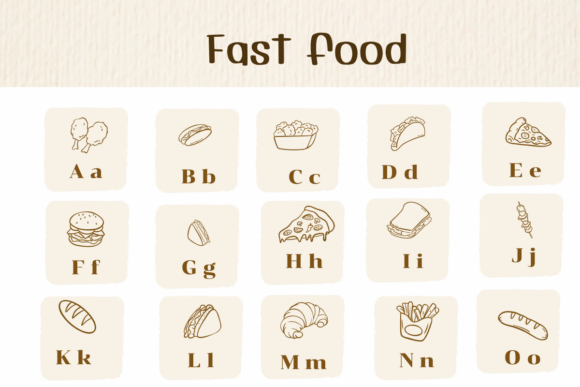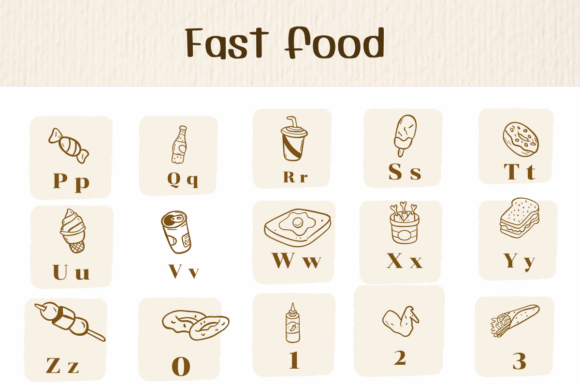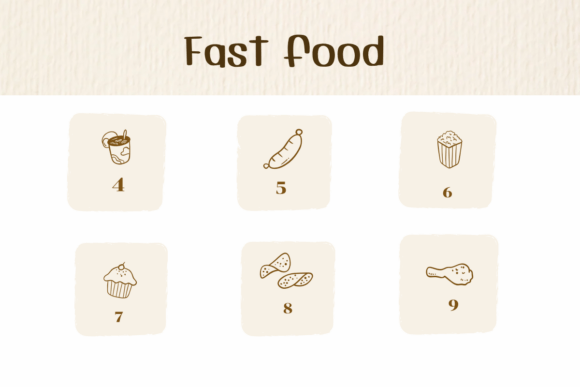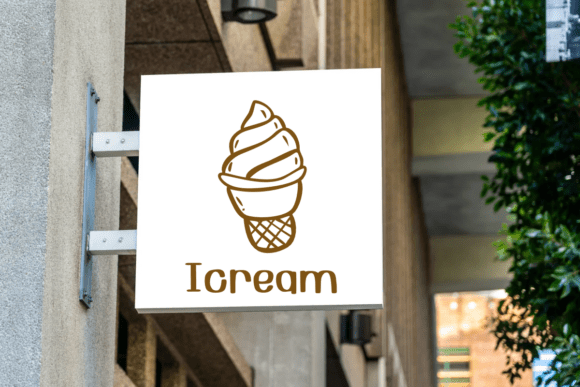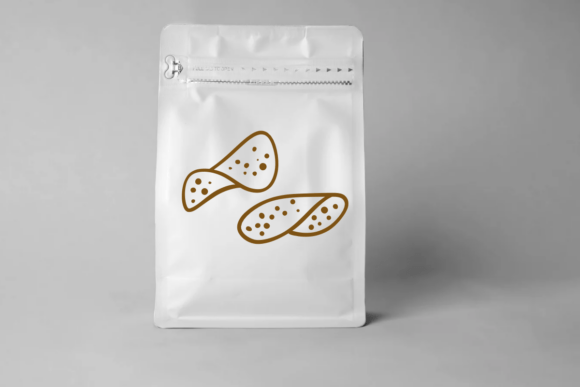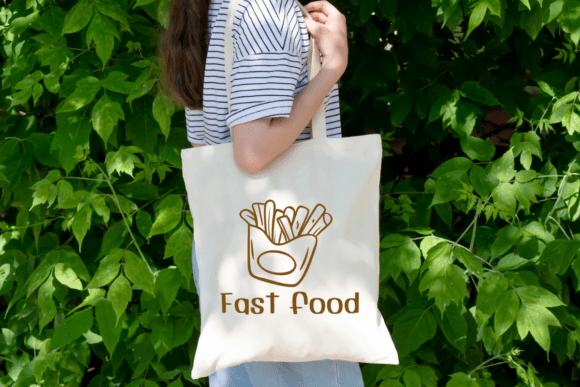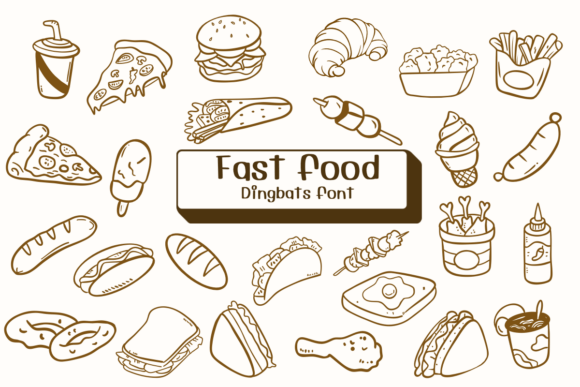
Fast Food Font: A Delicious Collection of Hand-Drawn Food Icons
Are you a designer, crafty enthusiast, or food blogger looking for a fun and playful way to add a tasty vibe to your projects? Look no further than the Fast Food Dingbats Font! This hand-drawn font serves up a mouth-watering collection of food icons that are sure to make your restaurant menus, food blogs, recipe cards, stickers, and packaging designs stand out.
What is Fast Food Dingbats Font?
Fast Food Dingbats Font is a unique and creative font that features a collection of hand-drawn food icons, including burgers, fries, tacos, pizza, ice cream, and many more. This playful dingbat font is perfect for adding a fun and whimsical touch to any project. Whether you’re designing a menu for a restaurant, creating a recipe card for a food blog, or making stickers for a craft project, Fast Food Dingbats Font is the perfect choice.
Key Features of Fast Food Dingbats Font
- Hand-drawn food icons: Each icon is carefully hand-drawn to ensure a unique and playful look.
- Variety of food icons: The font includes a wide range of food icons, from classic fast food items to sweet treats.
- Easy to use: Simply type in the keyboard shortcuts to access the icons and add them to your project.
- Scalable: The font is scalable, making it perfect for use in a variety of projects, from small stickers to large billboards.
Uses for Fast Food Dingbats Font
Fast Food Dingbats Font is a versatile font that can be used in a variety of projects, including:
- Restaurant menus: Add a fun and playful touch to your restaurant menu with hand-drawn food icons.
- Food blogs: Use the font to create eye-catching recipe cards and add a tasty vibe to your food blog.
- Recipe cards: Create custom recipe cards with hand-drawn food icons that will make your recipes stand out.
- Stickers: Use the font to create fun and colorful stickers for your craft projects.
- Packaging design: Add a playful touch to your packaging design with hand-drawn food icons.
Benefits of Using Fast Food Dingbats Font
Using Fast Food Dingbats Font in your projects offers a range of benefits, including:
- Unique and playful look: The hand-drawn food icons add a unique and playful touch to your projects.
- Increased engagement: The fun and whimsical design of the font is sure to engage your audience and make your projects stand out.
- Easy to use: The font is easy to use and scalable, making it perfect for a variety of projects.
- Time-saving: The font saves you time and effort, as you can simply type in the keyboard shortcuts to access the icons.
Tips for Using Fast Food Dingbats Font
Here are some tips for getting the most out of Fast Food Dingbats Font:
- Experiment with different colors: Try out different colors and combinations to add a pop of color to your projects.
- Mix and match icons: Combine different icons to create a unique and playful look.
- Use it in combination with other fonts: Pair Fast Food Dingbats Font with other fonts to create a visually appealing design.
Fast Food Dingbats Font is a fun and playful font that serves up a delicious collection of hand-drawn food icons. Perfect for designers, crafty enthusiasts, and food bloggers, this font is ideal for adding a tasty vibe to any project. With its ease of use, scalability, and unique design, Fast Food Dingbats Font is sure to become a favorite in your design toolkit.